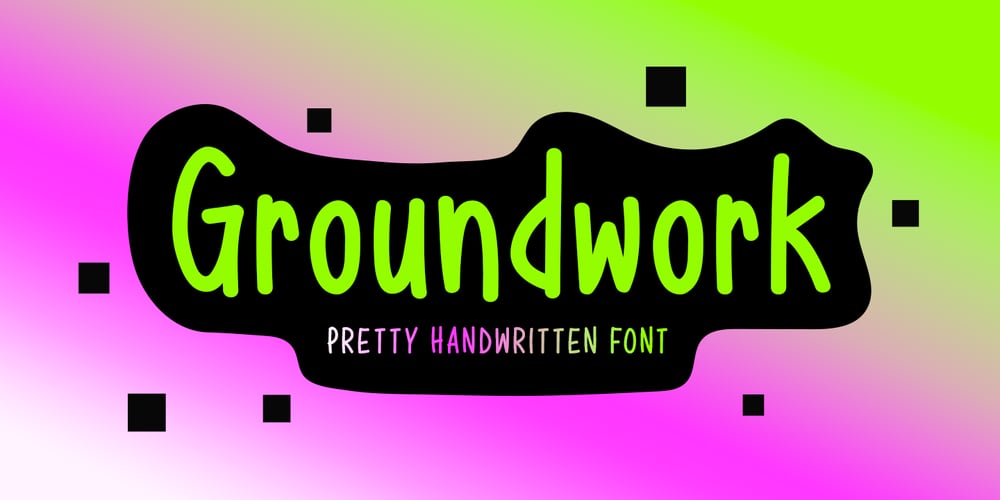
Groundwork
Groundwork font
Groundwork Font Family was designed by Md Shohail Bhuian and published by Seemly Fonts. Groundwork contains 1 styles and family package options. Groundwork is a newly created, exquisitely crafted handwritten font that embodies style and originality. This flexible font is a fantastic option for both digital and print design needs because it works well for a broad range of projects, such as stationery, logos, t-shirts, print materials, website headers, posters, album covers, and even picture frames.